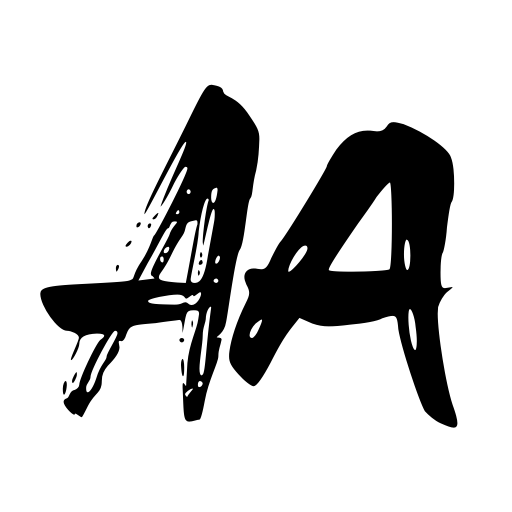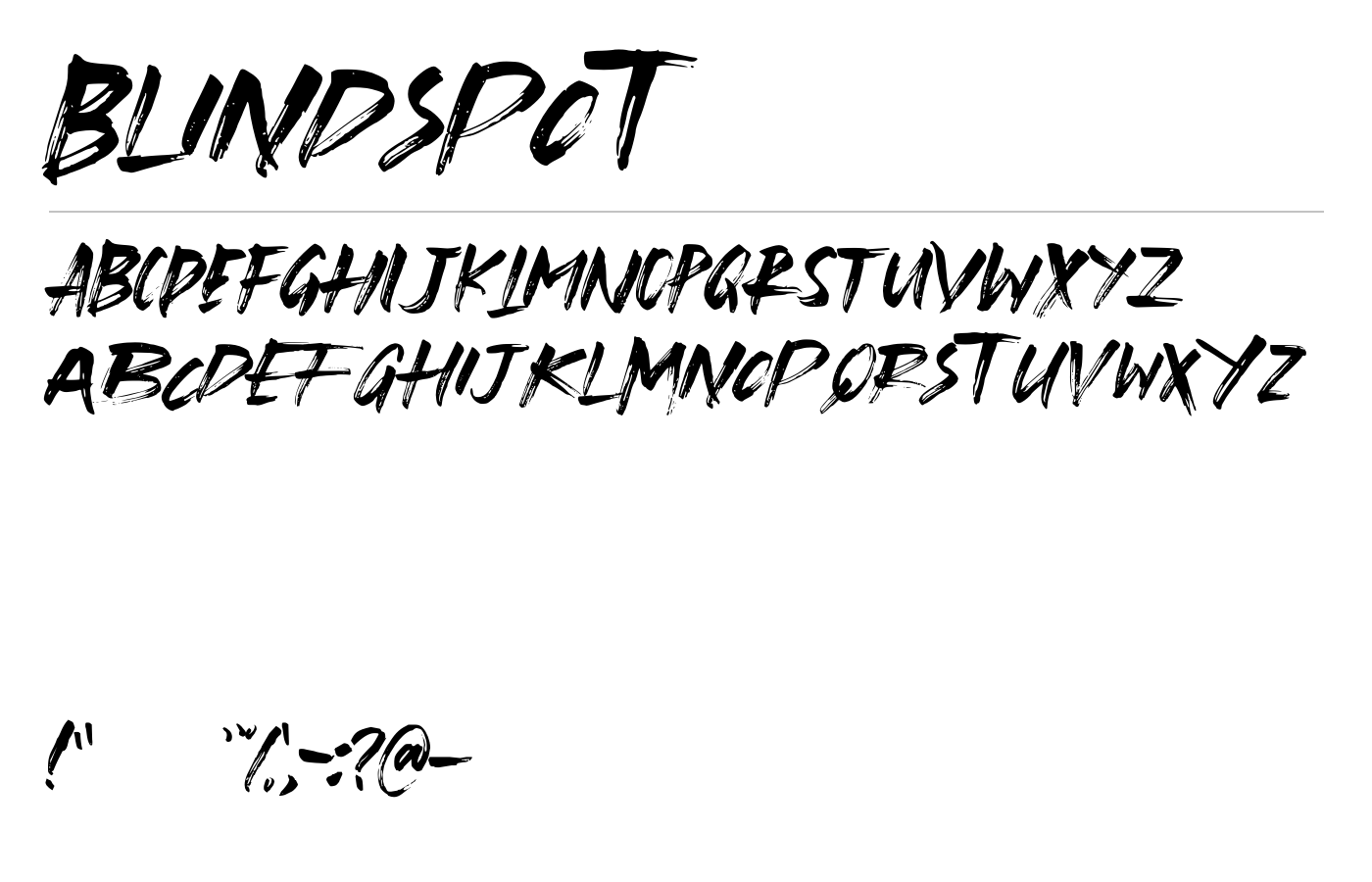
Blindspot is an energetic and bold handwritten brush font characterized by rough, textured strokes that give it an expressive, dynamic feel. Its uppercase letters vary in thickness and feature irregular edges, creating a spontaneous and edgy style perfect for creative branding, posters, and headlines that demand attention. This font’s lively personality makes it ideal for artistic and urban designs seeking a raw, modern vibe.
Blindspot Font
About Blindspot Font
| Font family | Blindspot Font |
| Designer | Sya'dan Ismail Rosyad |